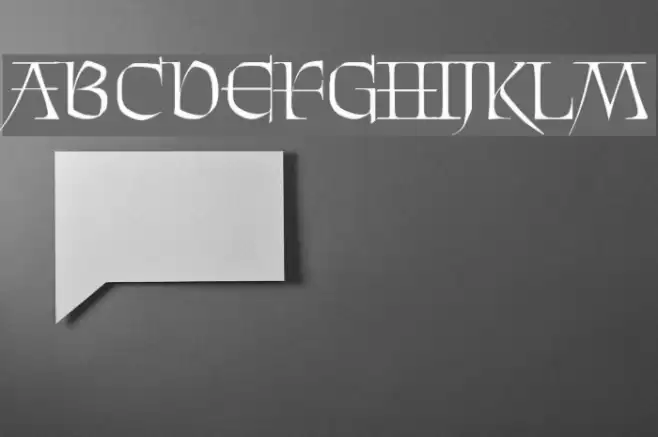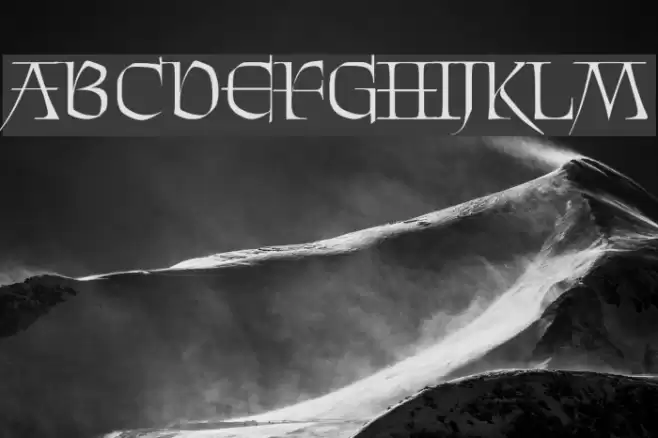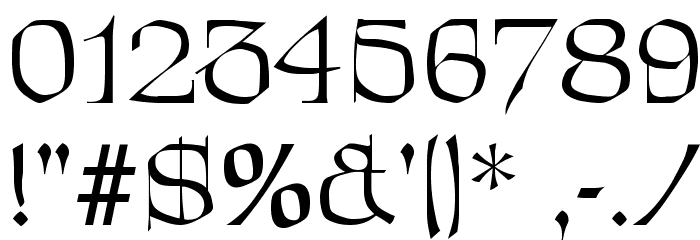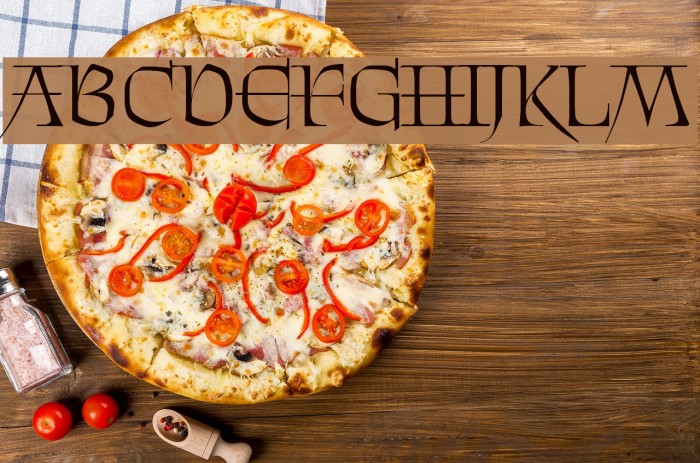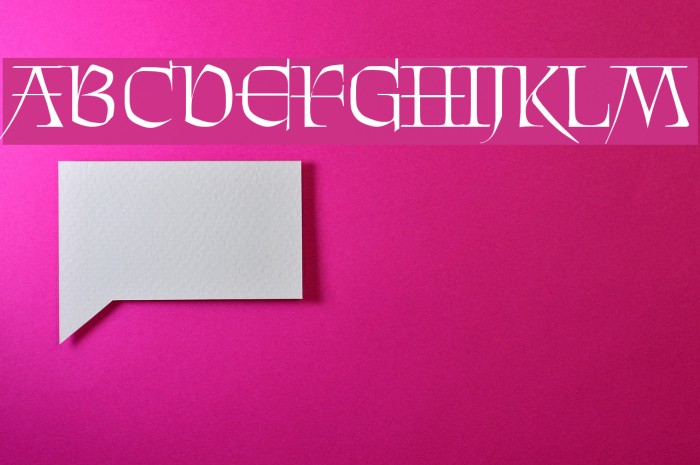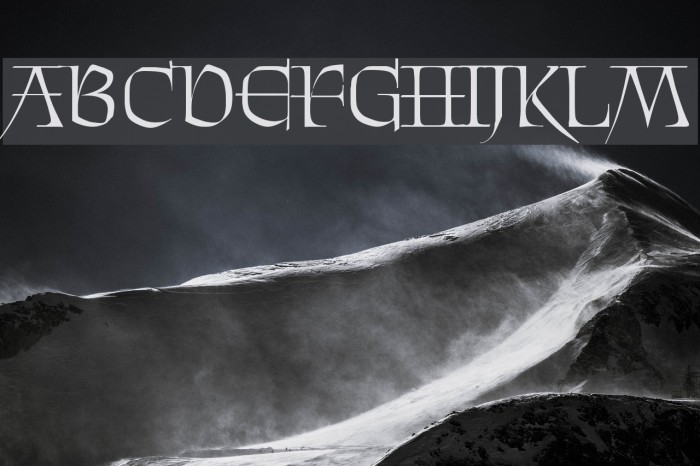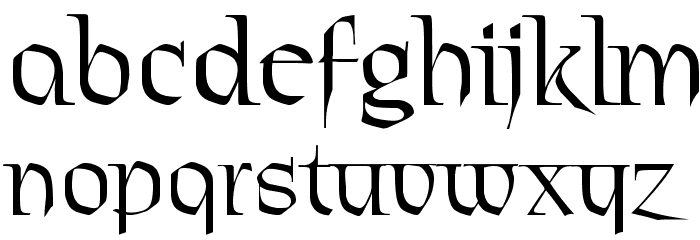
Patrick Regular Font
Patrick Regular Description
This font features a striking and unique design, characterized by sharp, angular lines and a gothic-inspired aesthetic. The uppercase letters exhibit a dramatic flair with elongated serifs and intricate detailing, while the lowercase letters maintain a consistent style with slightly softer curves. The numerals are bold and distinct, complementing the overall style with their geometric shapes. Special characters are crafted with the same attention to detail, enhancing the font's cohesive look. This font's design is both artistic and functional, making it suitable for a variety of creative applications.
A gothic-inspired font with sharp, angular lines and intricate detailing from Gothic fonts.
- Proposed Projects: Ideal for branding, posters, album covers, and any project requiring a bold, artistic touch.
- Overall Style: Gothic, Artistic